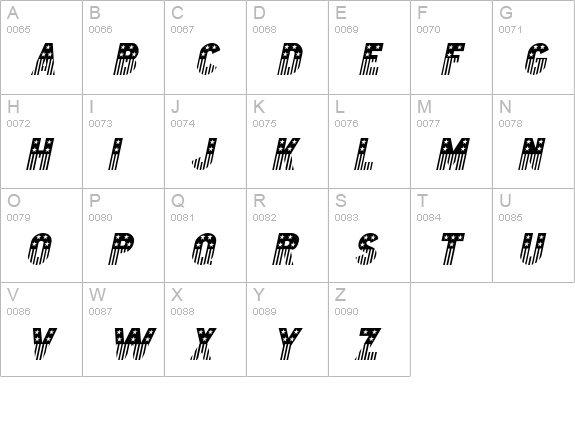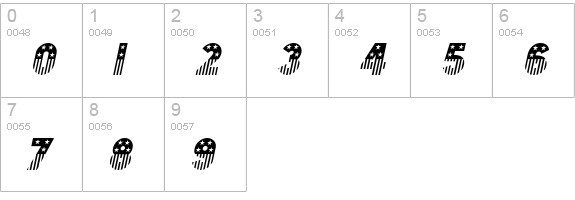
Bunting 2 Italic is a distinctive, italic variant in the Bunting typeface family \xE2\x80\x94 well suited to design and typography projects.
Bunting 2 Italic font is a modern and stylish typeface that exudes sophistication and elegance. Its sleek lines and graceful curves make it perfect for a wide range of design projects, from branding to packaging to editorial work. The italicized version of the Bunting 2 font adds a touch of flair and refinement, making it stand out from the crowd. The best part? Bunting 2 Italic font is available for free download at FontsMarket.com. That's right, you can easily access this exquisite font without spending a dime. Whether you're a professional designer looking to elevate your projects or a hobbyist seeking to add a touch of class to your creations, Bunting 2 Italic font is the perfect choice. Download it today and let your creativity shine with this stunning typeface.